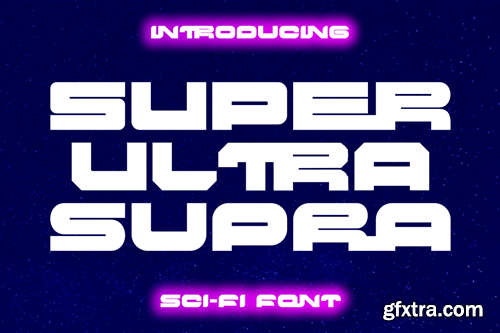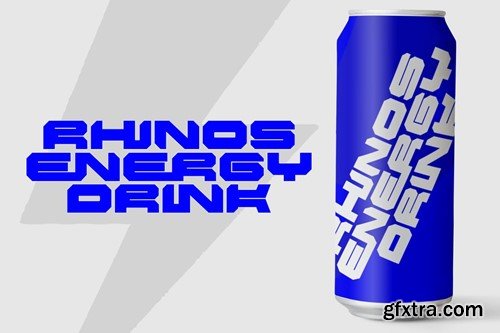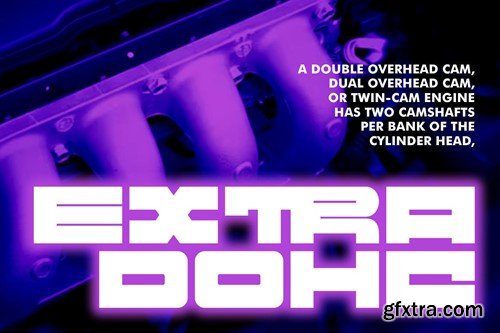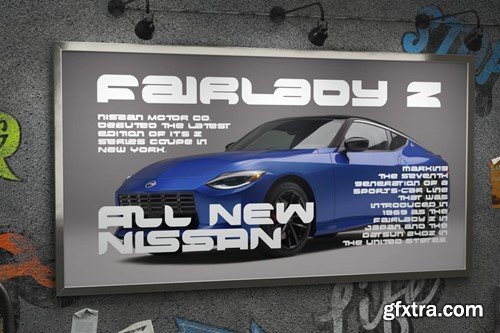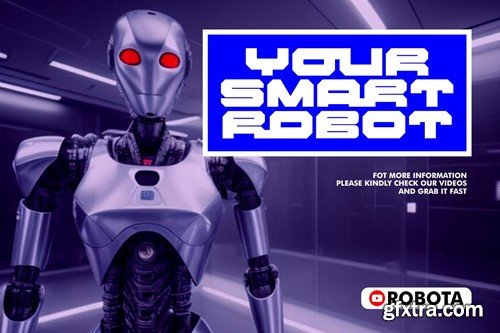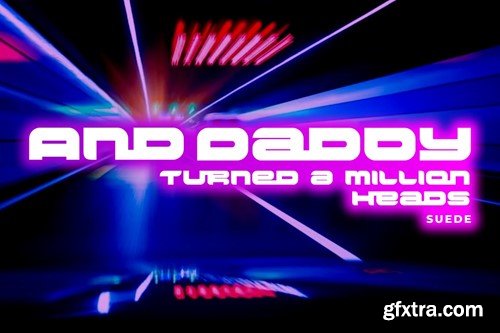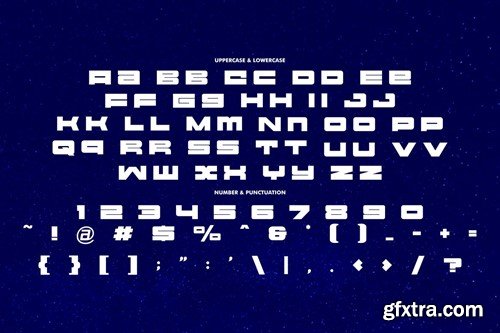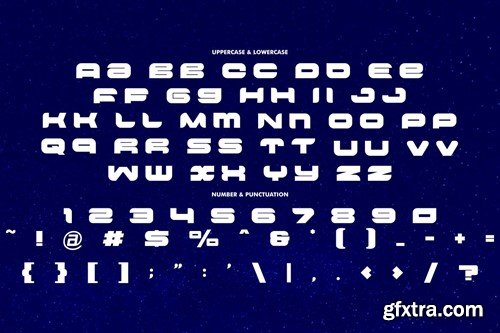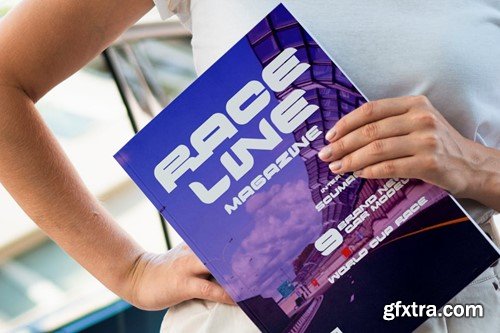
Super Ultra Supra - Futuristic Font is a bold, rigid, and thick typeface that exudes a distinct sci-fi or futuristic vibe. Its ultra-modern appearance carries a powerful impact, making a bold statement in design. With three versatile font versions at your disposal, you can easily adapt this font to suit your specific design or thematic needs. Additionally, the inclusion of ligatures adds an extra layer of uniqueness and versatility to this font. Ideal for logos, branding, posters, titles, magazine layouts, sports-related designs, and any projects that demand a strong and modern font. In Package : Feature : Note : The preview mock-up, element, shadow, image or graphic stock is not included in the download file. It’s only for presentation purpose. Thank you